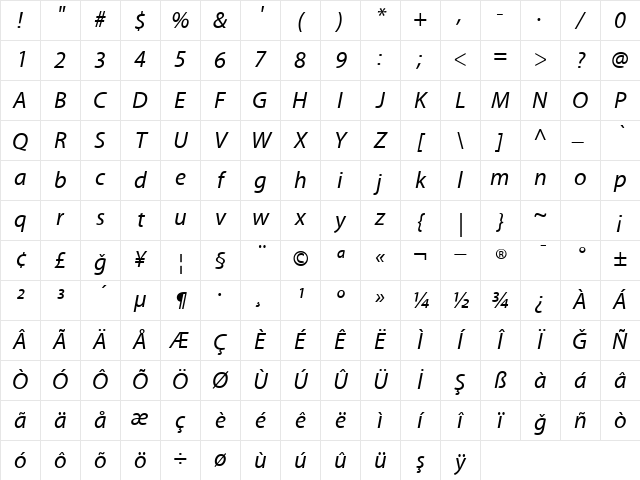
STVMyriad NormalItalic
Style: NormalItalic
Design Context for STVMyriad
STVMyriad is a composed and adaptable typeface that performs quietly and consistently across a wide range of design contexts. The slanted form adds forward momentum and visual energy.
Pro Tip: Use STVMyriad for emphasis, pull quotes, and subheadings where its slanted energy can add rhythm to the layout.